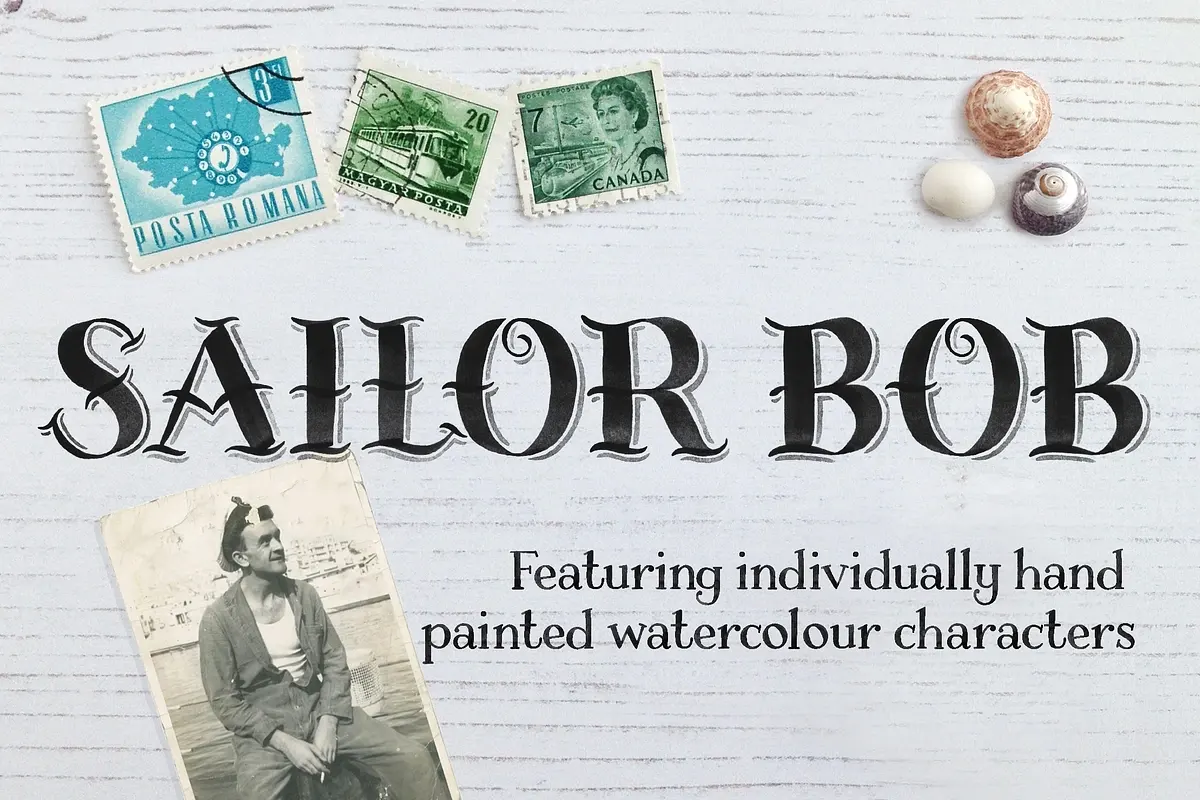
Sailor Bob Watercolour Display Font Free Download
Sailor Bob Watercolour Display Font Free Download is a playful and artistic typeface that brings a hand-painted watercolor effect to your designs. With its bold brush strokes and organic texture, this display font is perfect for posters, children’s books, greeting cards, DIY crafts, and branding projects that call for creativity and charm. It captures the carefree spirit of hand lettering with a nautical twist.
Whether you're designing for summer events, beach-themed products, or whimsical packaging, Sailor Bob Watercolour Display Font Free Download adds a splash of personality and color to your visuals. The font’s expressive character makes every word feel lively and custom-made.